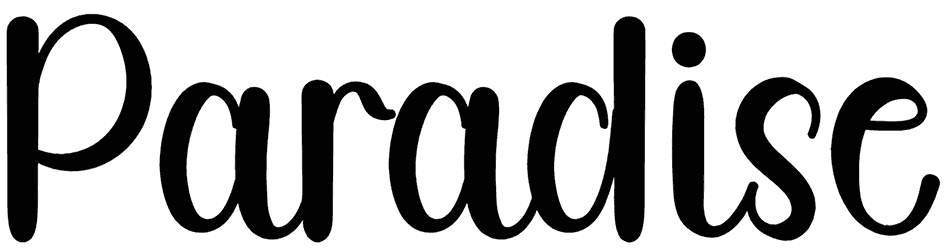
Paradise Font
Check out our new beautiful handwritten font, Paradise. It has a regular display, and in separate words, letters are connected perfectly, which attracts everyone who looks at it. This summer font is very special and carefully elaborated with an organic touch. You can use it in a variety of projects, such as personalized gift notes, decorative designs, feminine materials, branding, and greeting cards.